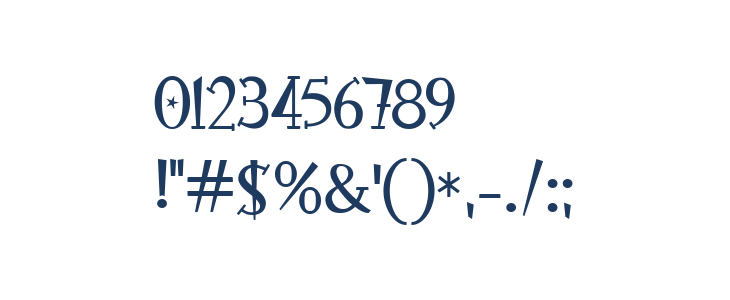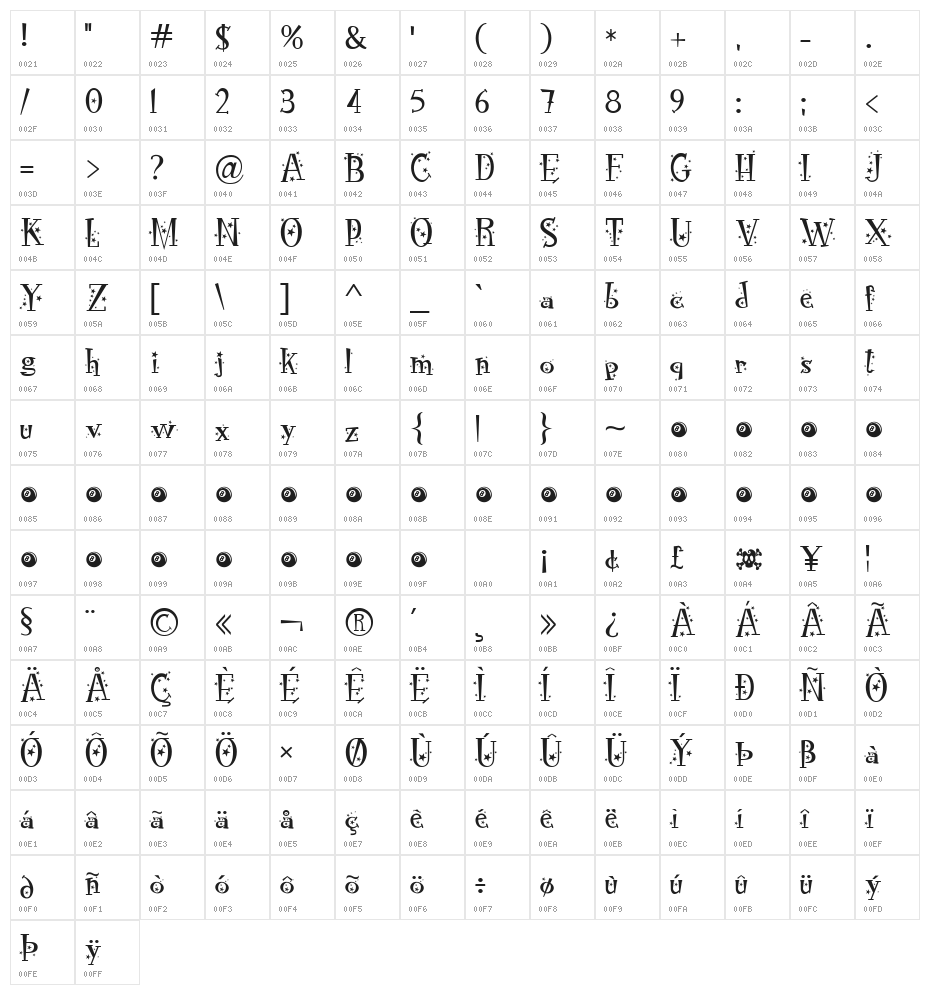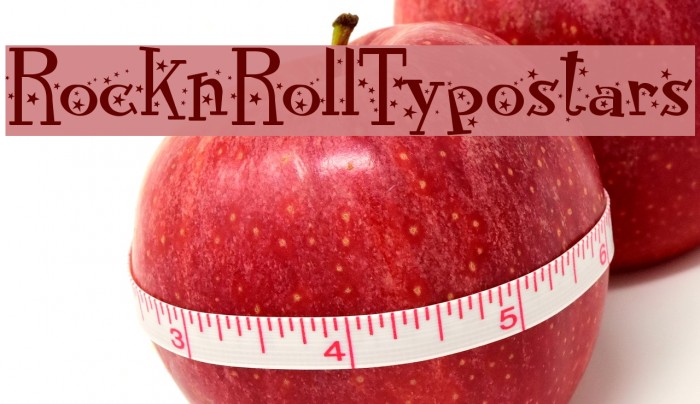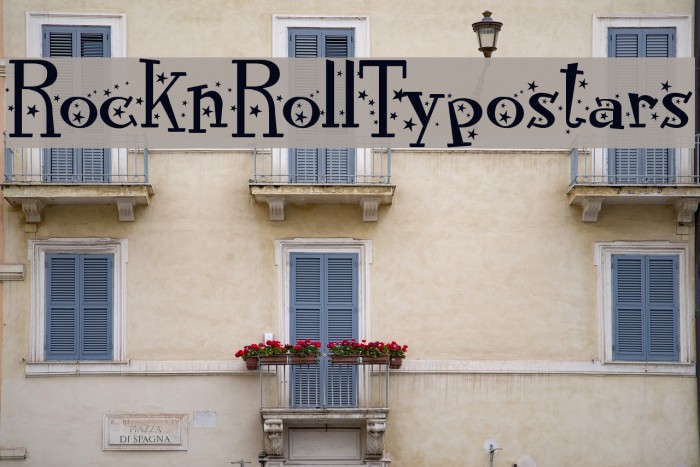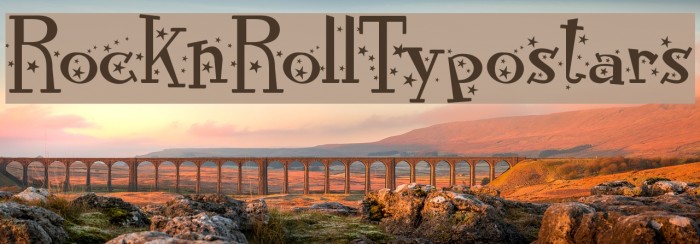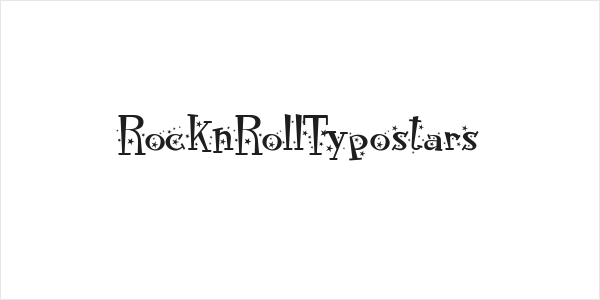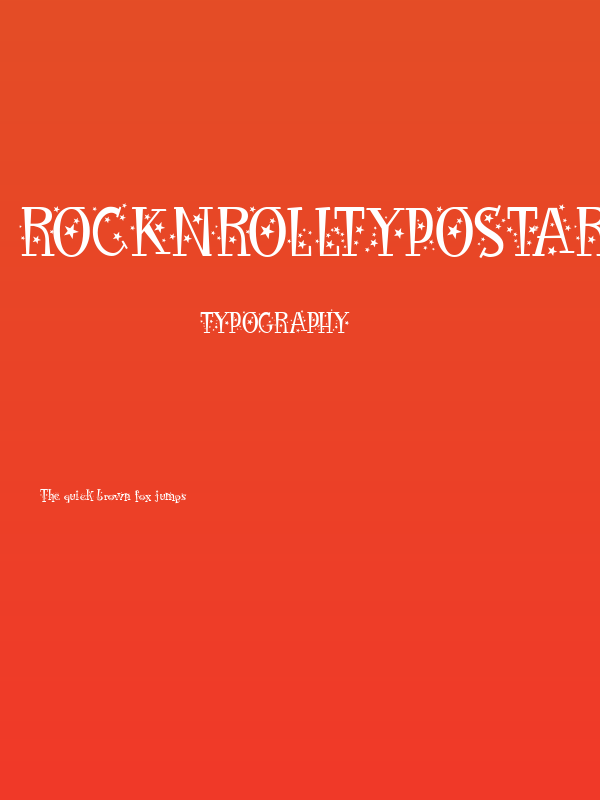
RocknRollTypostars Font
RocknRollTypostars Description
This font is a decorative and playful typeface characterized by its bold, whimsical letters adorned with star motifs. The uppercase and lowercase letters maintain a consistent style, with each character featuring unique star embellishments that add a sense of fun and creativity. The numbers and special characters follow the same decorative theme, making the font cohesive and visually engaging. Its bold strokes and distinct design make it stand out, perfect for projects that require a touch of flair and personality.
Proposed ProjectsIdeal for party invitations, children's book covers, music event posters, and any creative project needing a playful touch.